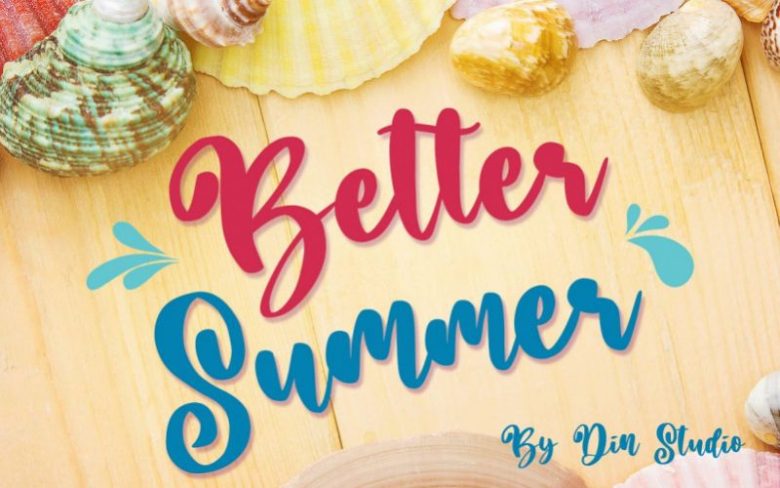
Better Summer Brush Font
“Summer is Never Ending :D”
Introducing a Better Summer Script. Made from a chic brush, it will make your design more beautiful.